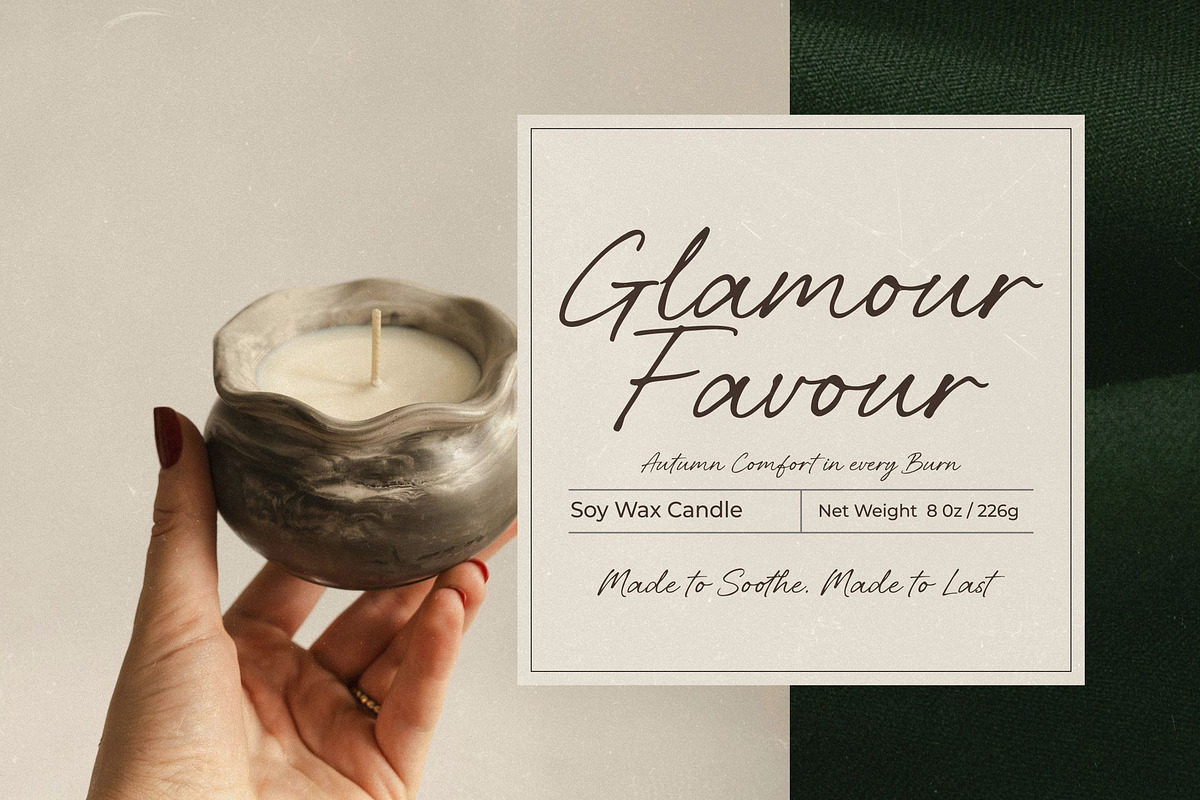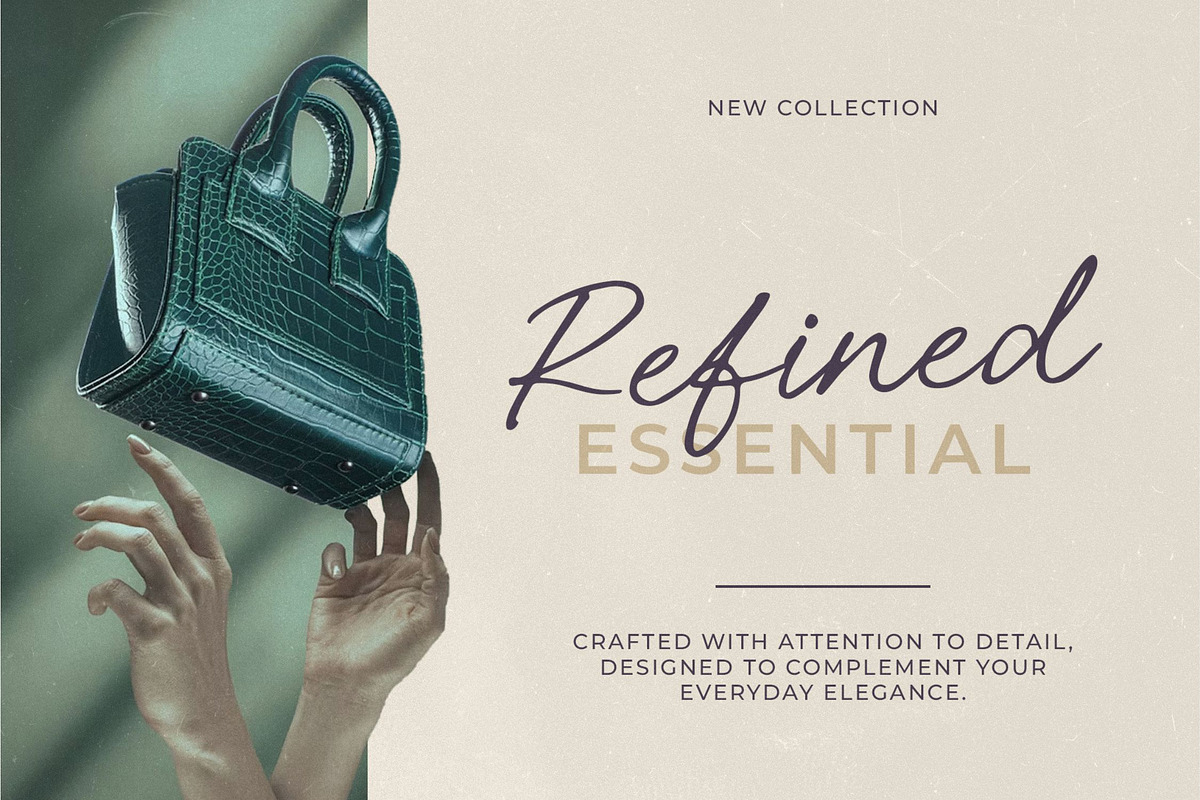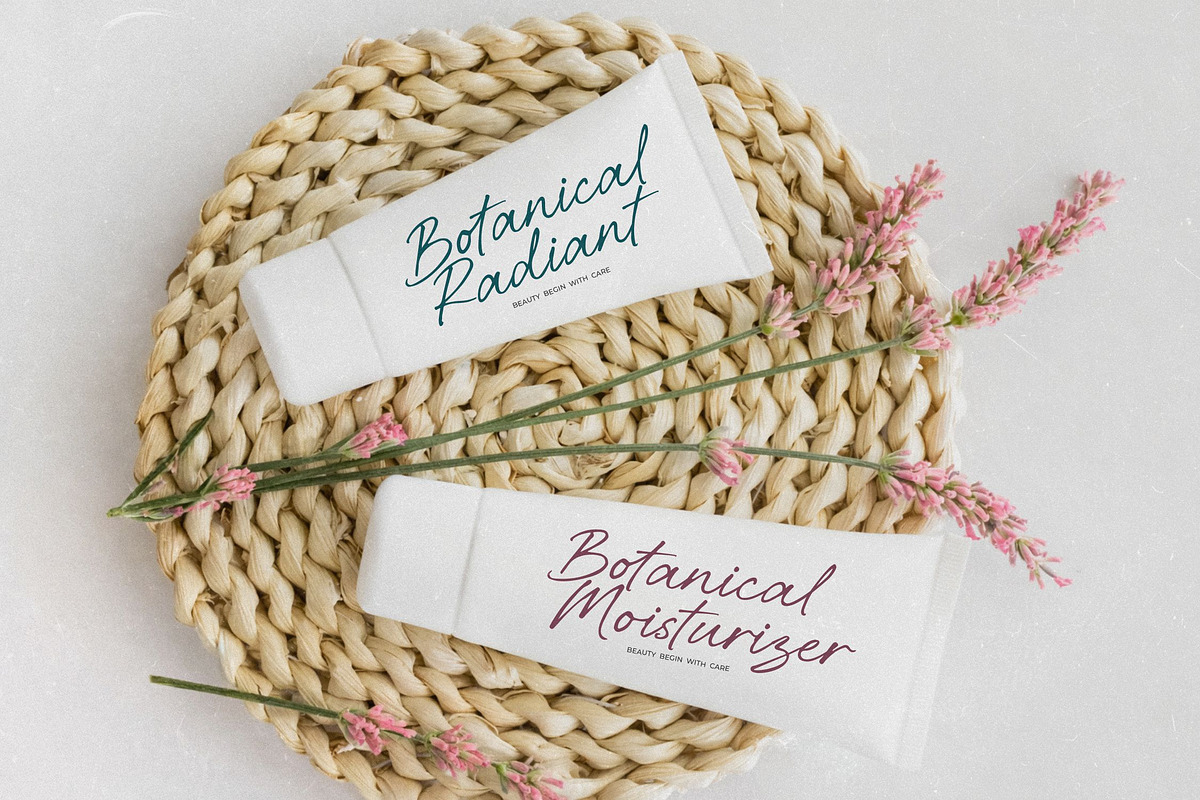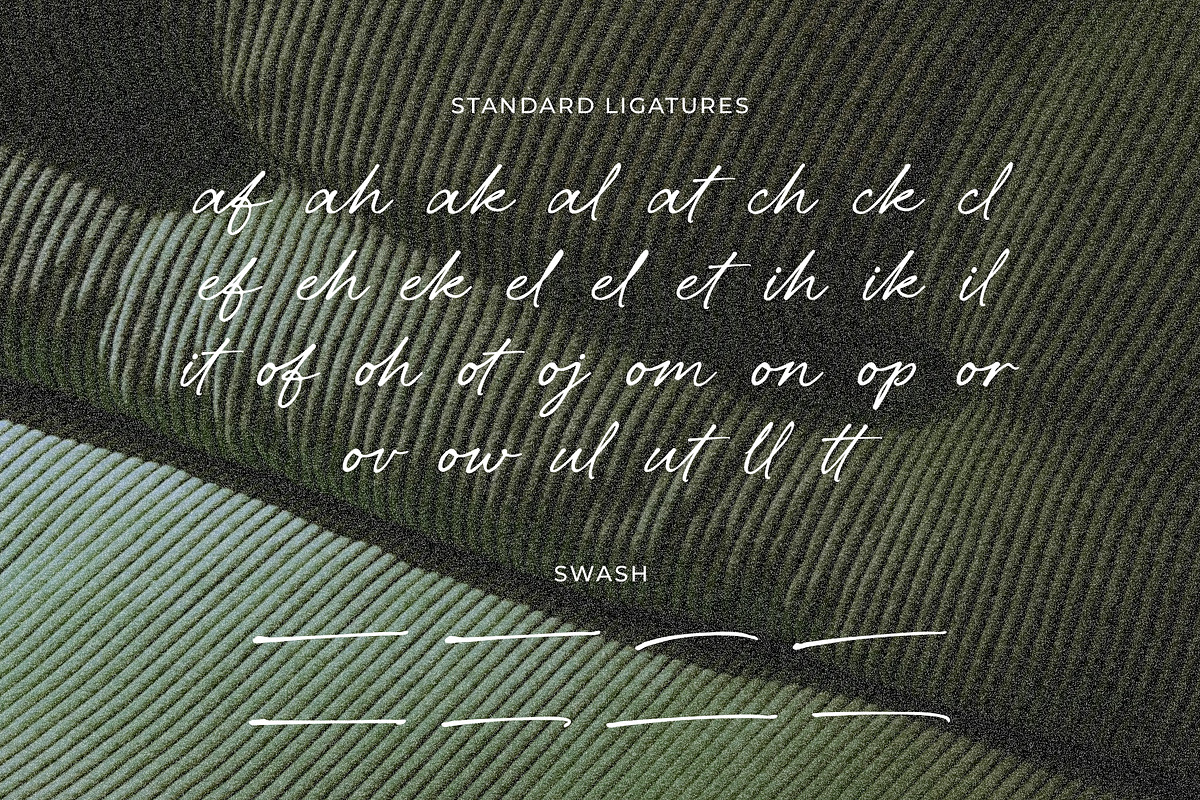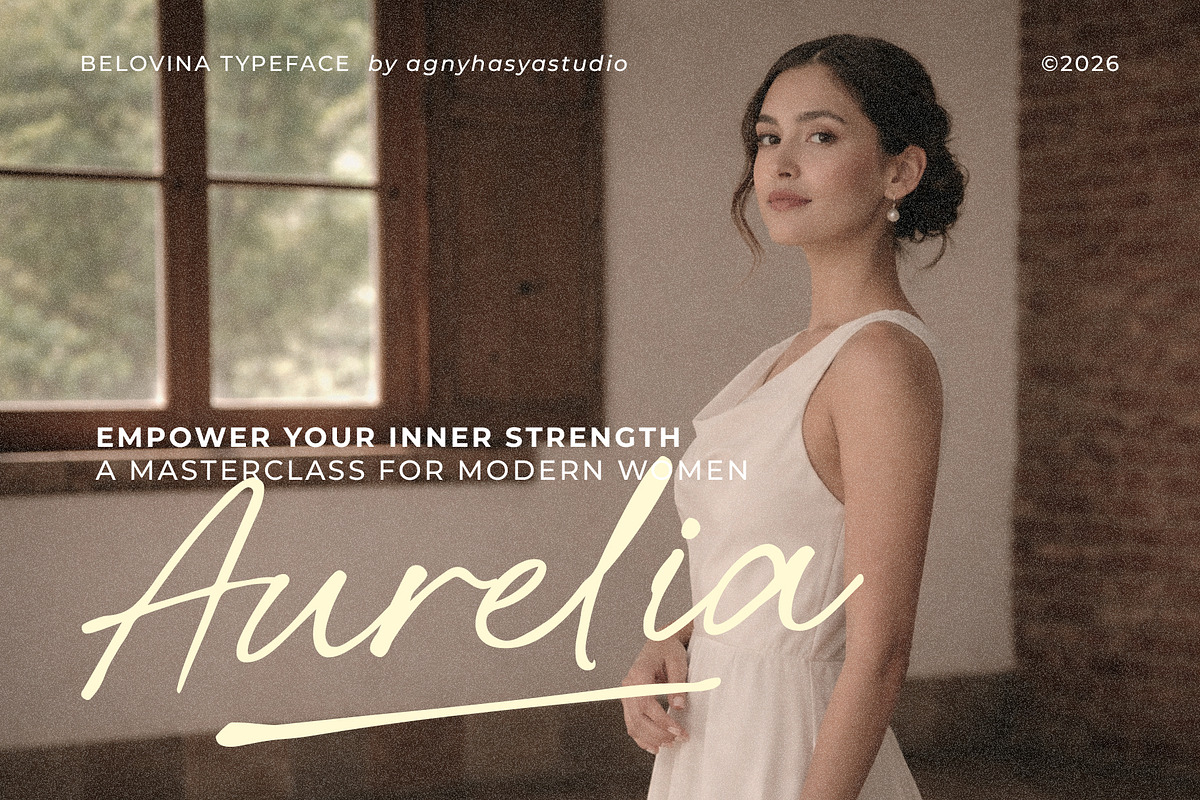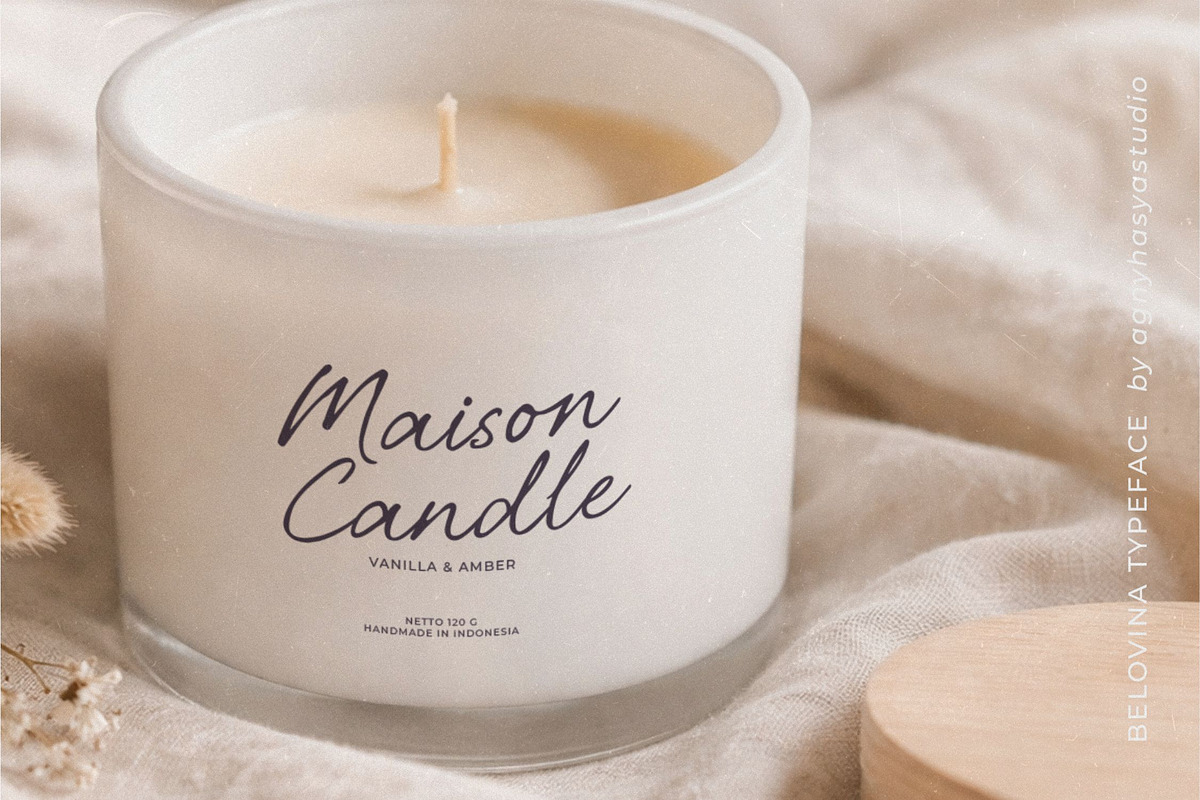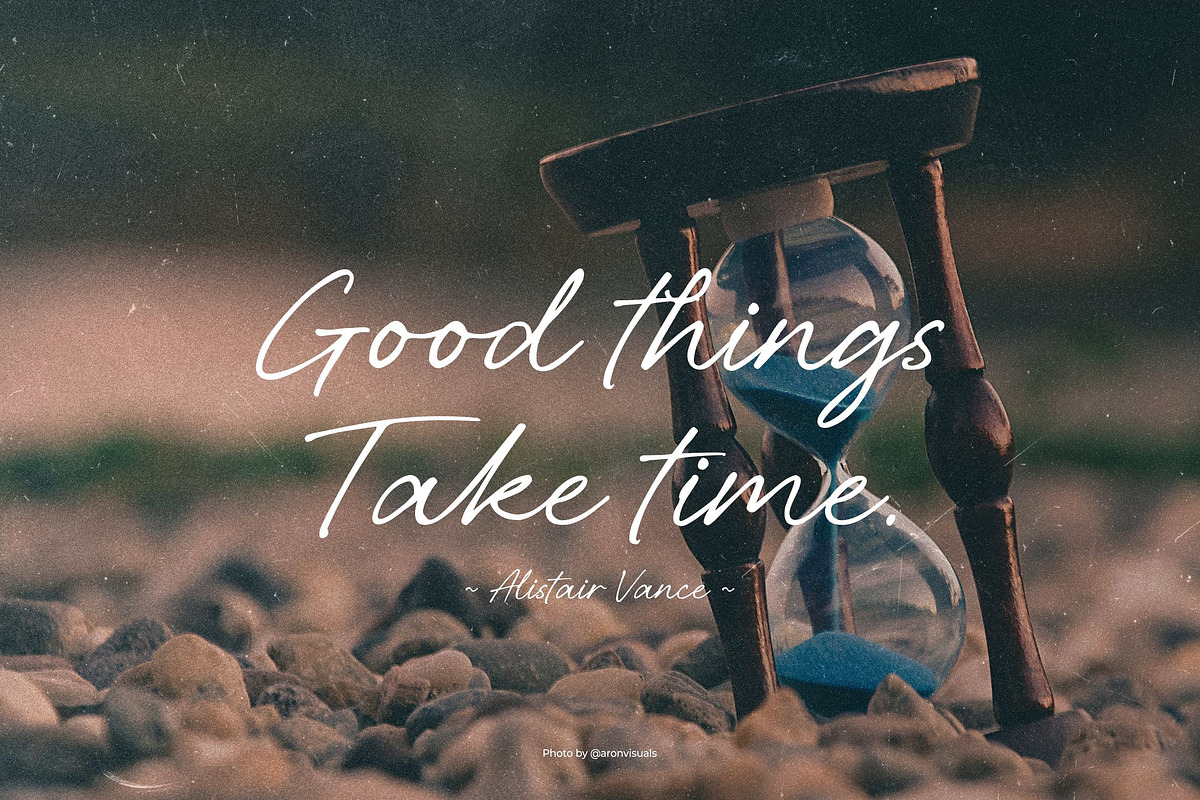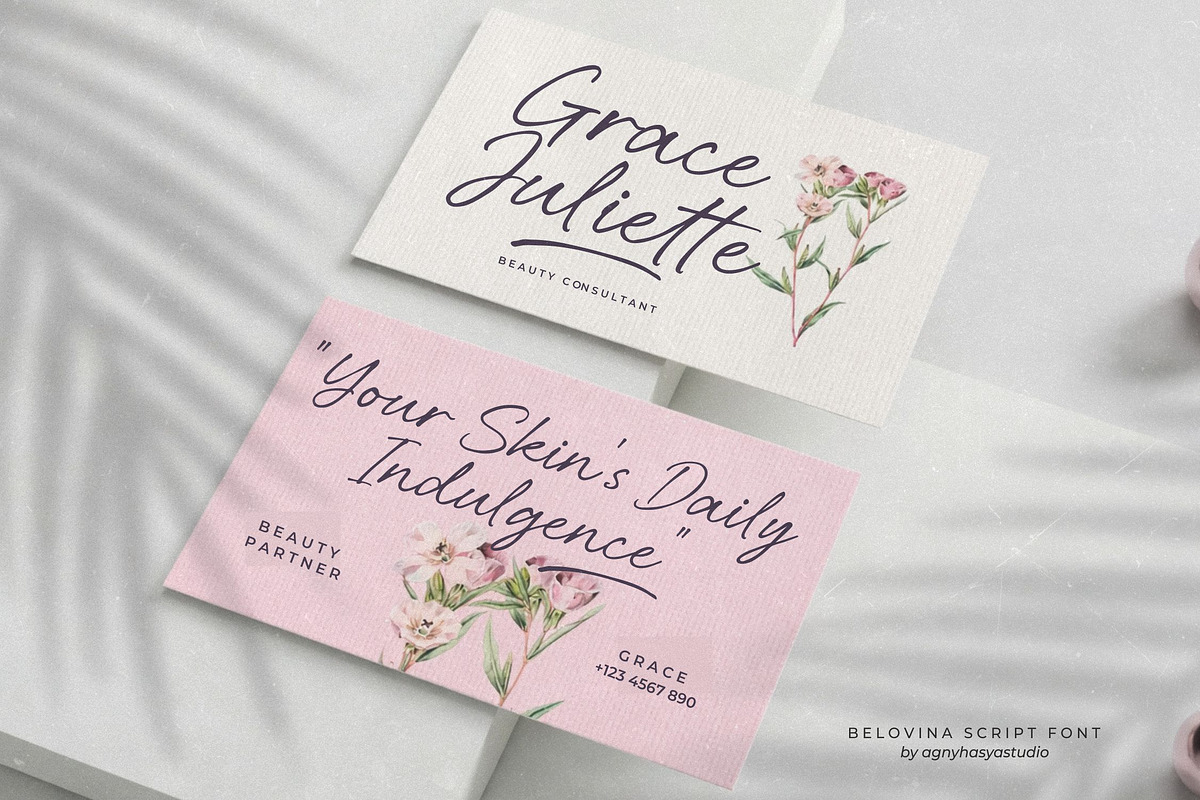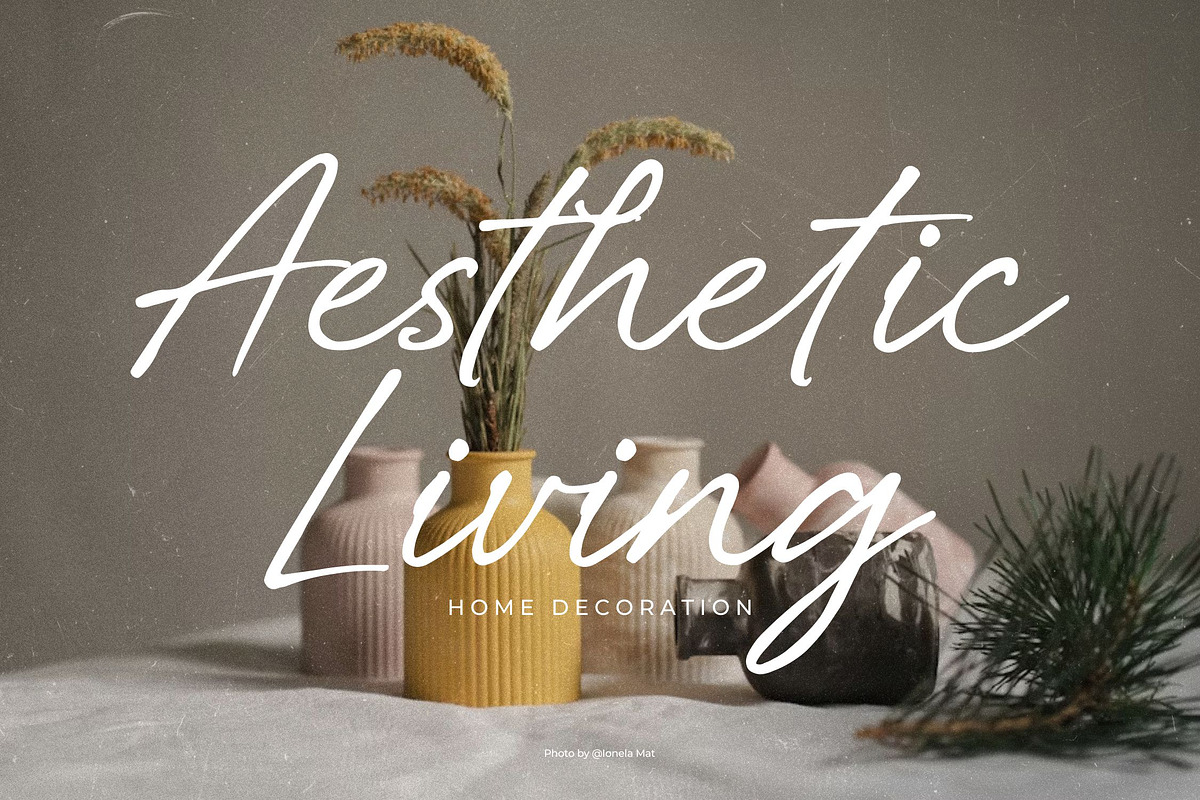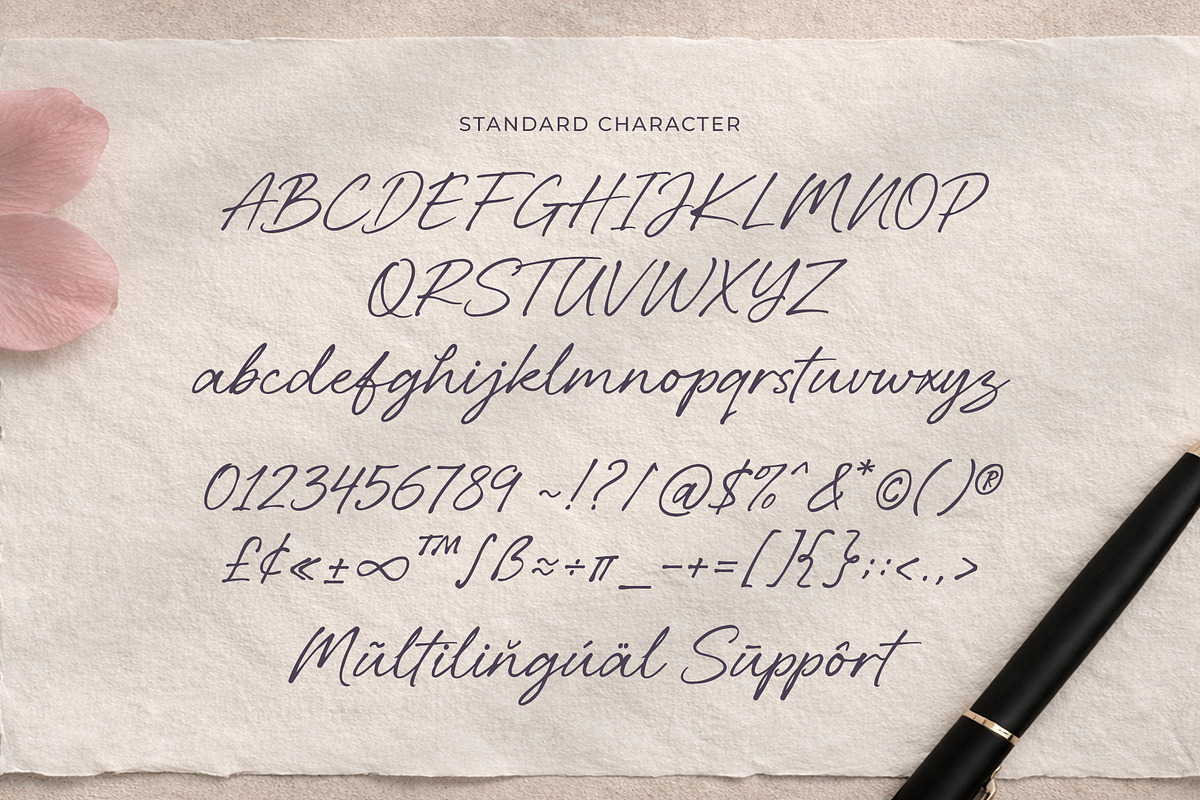
Belovina - Handwritten Script Font
Belovina is a clean and elegant handwritten script font designed with a natural and modern flow. Crafted to deliver simplicity with refined style, this font brings a perfect balance between casual handwriting and professional elegance.
With its smooth strokes and readable letterforms, Belovina is highly versatile and works beautifully across a wide range of design projects. Whether you're creating branding, packaging, or social media content, this font adds a stylish and personal touch.
Belovina is ideal for:
- Beauty and skincare branding
- Product packaging
- Logo design
- Social media content
- Quotes and typography
- Boutique and lifestyle brands
- Business cards and stationery
Its minimalist yet expressive style makes it perfect for designers who want a handwritten look that feels clean, modern, and effortlessly elegant.